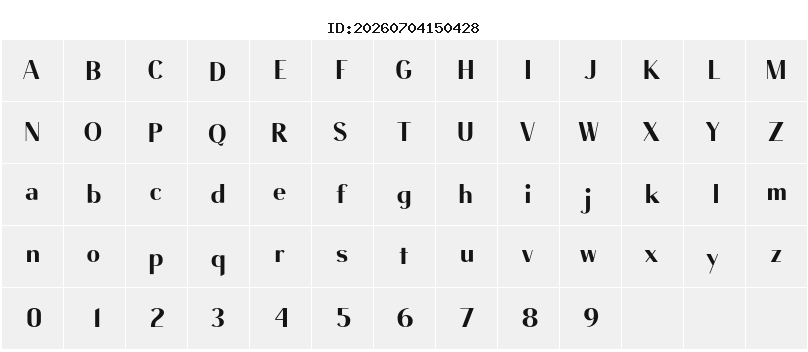
Durak Preview
• Font Name: Durak
About Durak.otf
Durak.otf is a modern, elegant sans-serif font designed for ultimate readability and visual harmony. Perfect for branding, headlines, web design, and print materials.